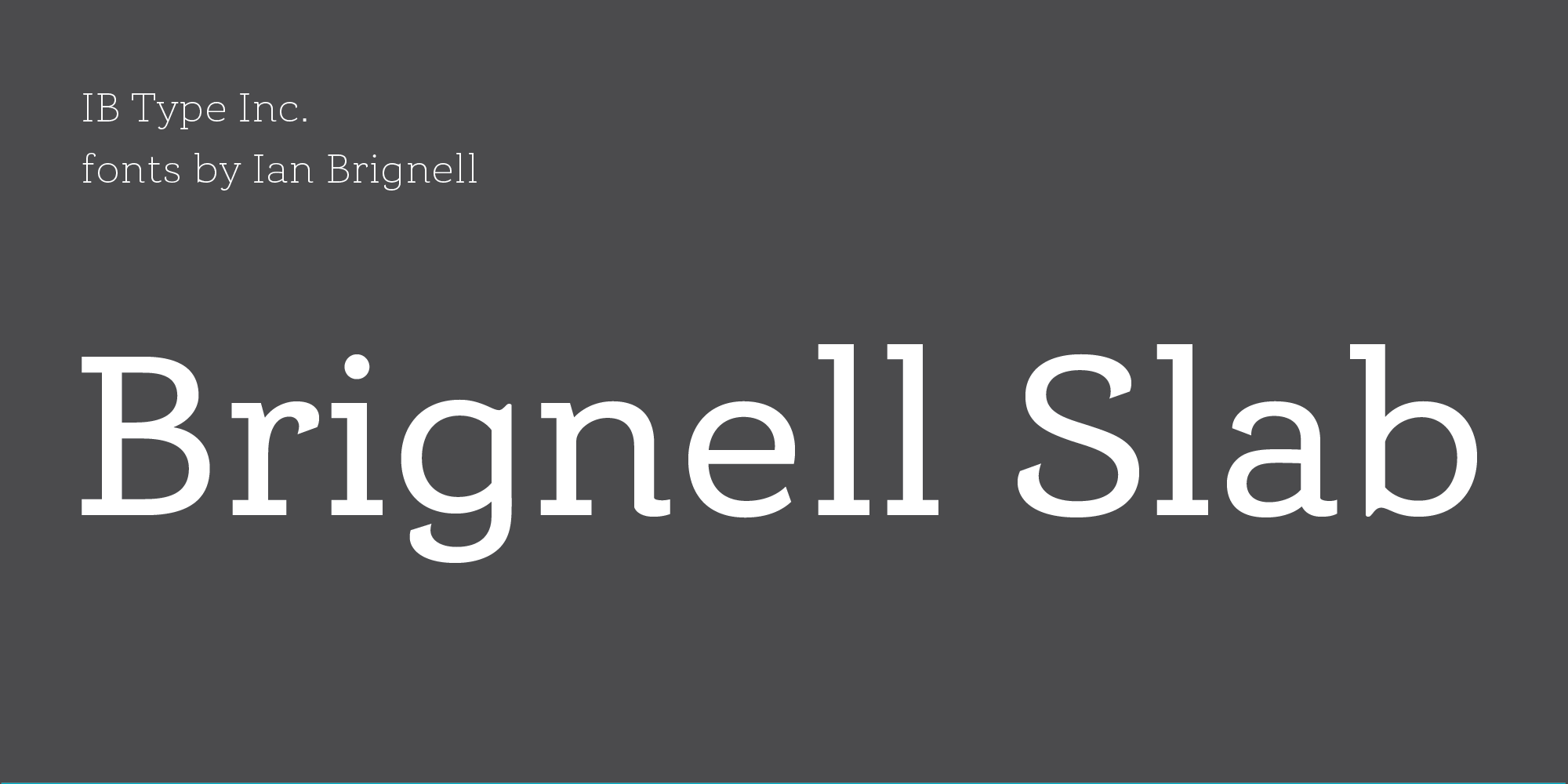
Brignell Slab Font is perfect for industrial manufacturing company branding, construction equipment dealer communications, heavy machinery operator signage, robust engineering firm marketing, steel fabrication workshop materials, architectural concrete specialist promotions, industrial design studio campaigns, and solid infrastructure project designs. This powerful typeface excels in applications where industrial strength, structural reliability, and engineering precision are essential for connecting with audiences who appreciate the fundamental importance of heavy construction and the enduring power of industrial craftsmanship.
What makes Brignell Slab Font so exciting is its commanding embodiment of industrial strength and structural engineering that perfectly captures the essence of concrete foundations and the unwavering reliability of heavy construction where massive slab foundations support civilization's greatest achievements through decades of proven performance. The font features bold, slab-serif letterforms with industrial characteristics that evoke reinforced concrete and structural steel beams. Its robust character conveys durability, stability, and engineering excellence - essential qualities for brands serving construction markets, industrial sectors, and audiences who appreciate heavy machinery, structural engineering, and the fundamental importance of solid foundations that support modern infrastructure and industrial advancement.
The Brignell Slab Font family includes multiple heavyweight variations and industrial-inspired weights that enhance its structural appeal. Some versions feature extra-bold characteristics that simulate the massive scale of industrial construction and heavy engineering projects, while others provide balanced variants that maintain the font's powerful character with enhanced readability for professional construction applications and commercial industrial communications.
Whether you're creating branding for construction companies, designing materials for industrial services, or developing marketing campaigns for engineering experiences, Brignell Slab Font Free Download provides the structural authority your project requires. The font's industrial character makes it particularly effective for brands targeting construction professionals who appreciate heavy machinery, structural engineering, and the solid reliability of industrial construction and infrastructure development.
Build with industrial strength using Brignell Slab Font and construct powerful brand communications with typography that embodies the structural reliability of heavy engineering and industrial foundation excellence.